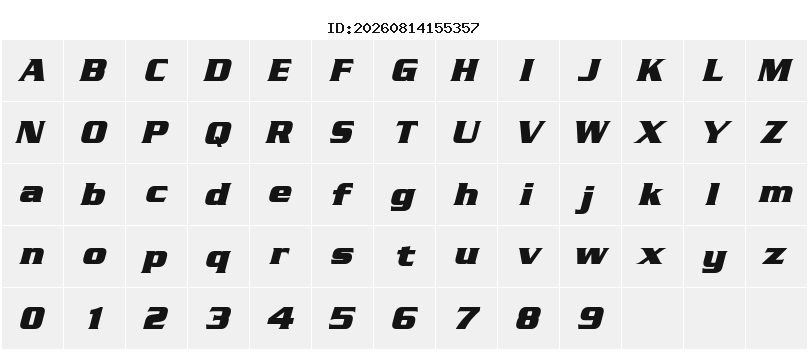
Straczynski Preview
• Font Name: Straczynski
• Full Font Name: Straczynski Bold Italic
• Designer: Neale Davidson
About Straczynski.ttf
Straczynski.ttf is a modern, elegant sans-serif font designed for ultimate readability and visual harmony. Perfect for branding, headlines, web design, and print materials.